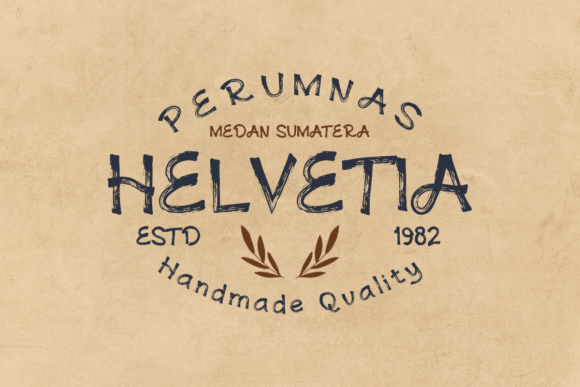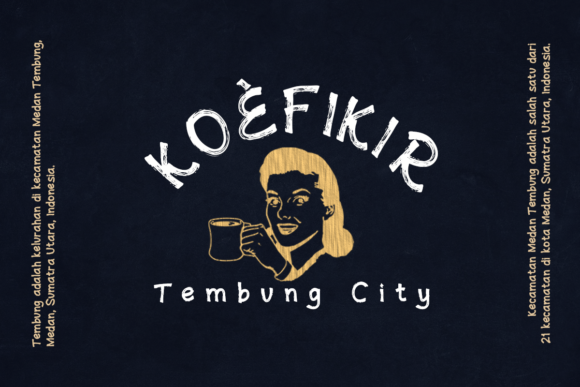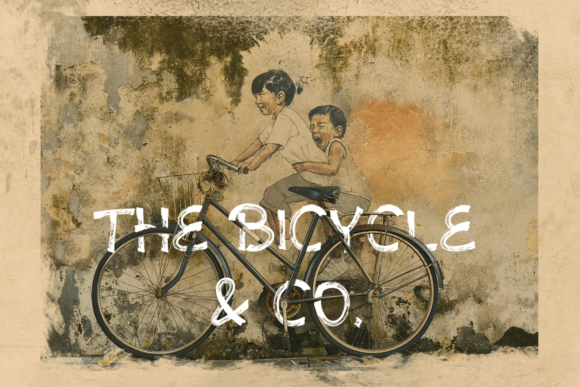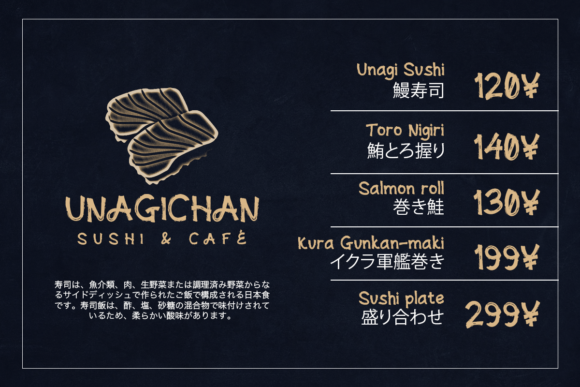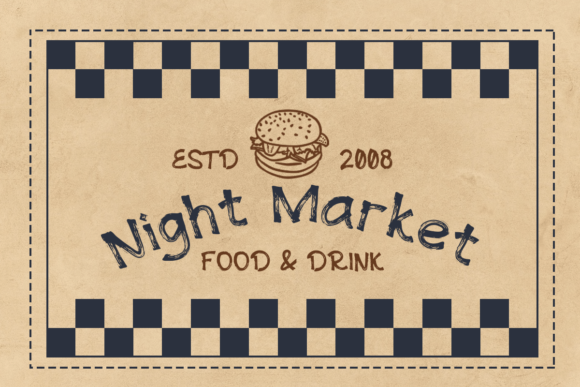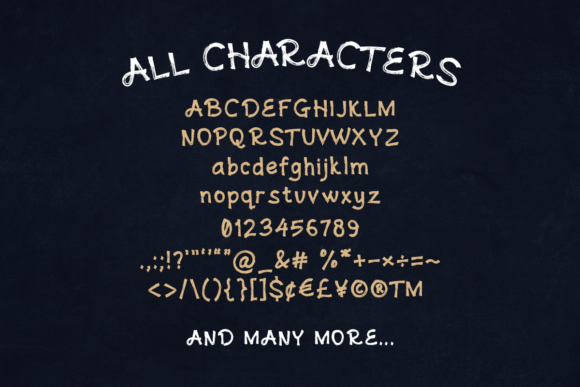
Introducing Andovine Font: A Vintage-Inspired Powerhouse
Are you on the hunt for a font that exudes raw authenticity and a vintage charm? Look no further than Andovine Font. This strong and powerful display font is sure to capture your heart with its unique character and nostalgic appeal. In this article, we’ll dive into the world of Andovine Font, exploring its features, uses, and what makes it a must-have for designers and crafters.
The Story Behind Andovine Font
Andovine Font is a carefully crafted typeface that draws inspiration from the past. Its vintage feel is reminiscent of classic signage and posters from bygone eras, evoking a sense of nostalgia and timelessness. The font’s creator aimed to capture the essence of traditional typography, infusing it with a modern twist to make it suitable for a wide range of design applications.
Key Features of Andovine Font
- Strong and Powerful: Andovine Font boasts a bold and commanding presence, making it perfect for headlines, titles, and displays.
- Vintage Feel: The font’s classic design elements and subtle imperfections evoke a sense of nostalgia and authenticity.
- Highly Legible: Despite its bold nature, Andovine Font remains highly legible, even at smaller sizes.
- Versatile: This font can be used for a variety of design projects, from branding and advertising to packaging and signage.
Uses for Andovine Font
Andovine Font’s versatility makes it an excellent choice for various design projects. Here are some ideas to get you started:
- Branding and Logo Design: Use Andovine Font to create a bold and memorable logo that stands out from the crowd.
- Advertising and Marketing: This font is perfect for creating eye-catching headlines and titles for advertisements, flyers, and brochures.
- Packaging Design: Add a touch of vintage charm to your product packaging with Andovine Font.
- Signage and Displays: Use this font for outdoor signage, banners, and displays to grab attention and make a lasting impression.
Tips for Working with Andovine Font
To get the most out of Andovine Font, follow these expert tips:
- Pair with Contrasting Fonts: Combine Andovine Font with a clean, sans-serif font to create visual interest and hierarchy.
- Experiment with Colors: Try pairing Andovine Font with bold, bright colors to enhance its vintage appeal.
- Use it Sparingly: Due to its bold nature, use Andovine Font judiciously to avoid overwhelming your design.
Andovine Font is a powerful and captivating display font that is sure to win your heart with its raw authenticity and vintage charm. Its versatility, legibility, and bold presence make it an excellent choice for a wide range of design projects. Whether you’re a designer, crafter, or simply a typography enthusiast, Andovine Font is a must-have addition to your font library.